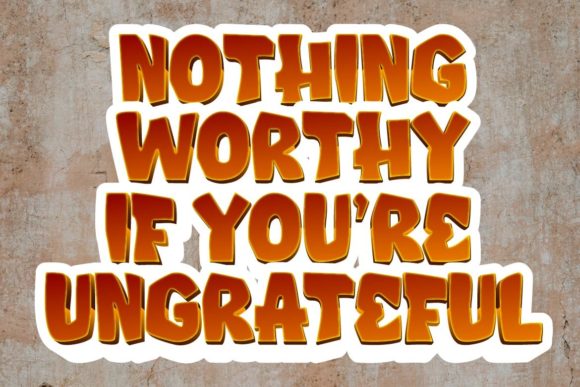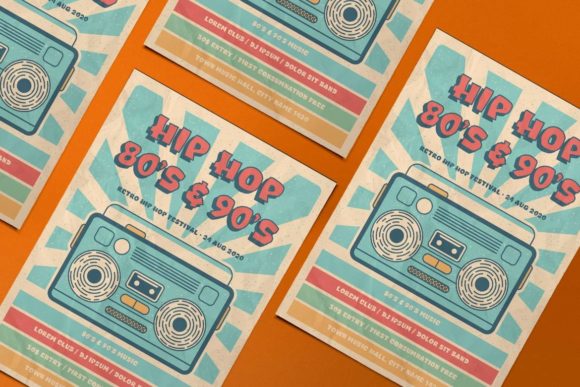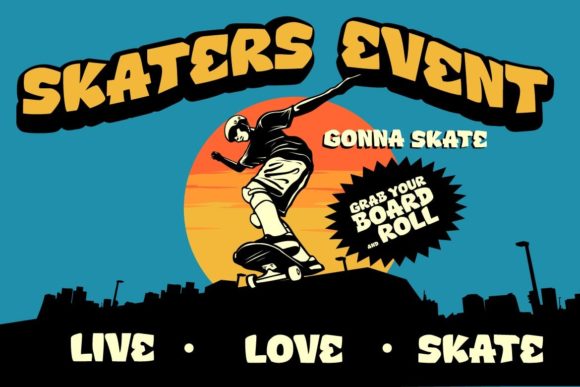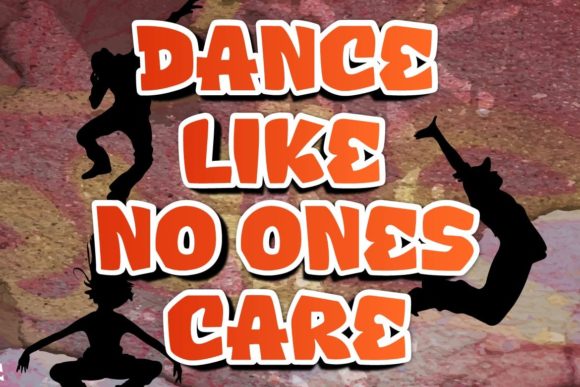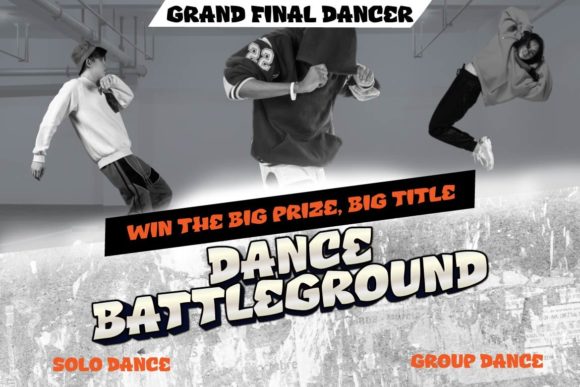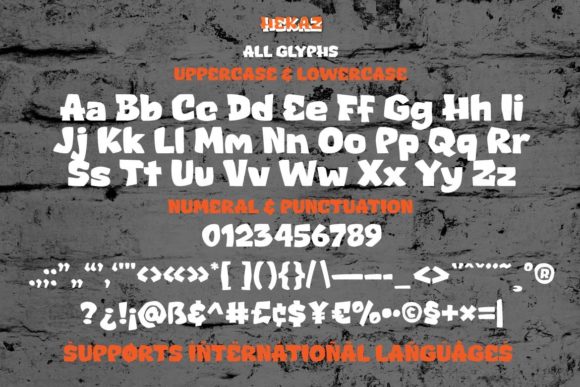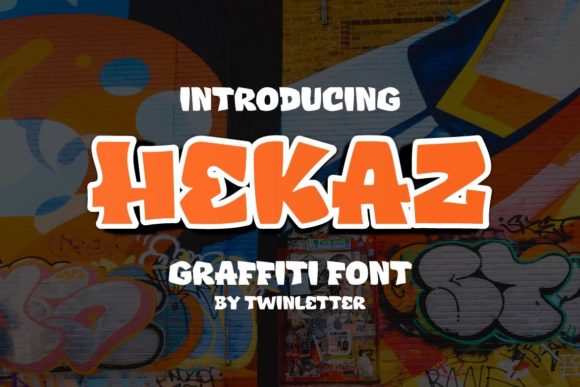
Hekaz Font: The Ultimate Urban Touch for Your Designs
In the world of typography, fonts play a crucial role in conveying the tone and personality of a design. For designers and crafters looking to add an urban touch to their work, Hekaz Font is an excellent choice. This cool, bold, and graffiti-styled display font is perfect for labels, branding, rap covers, and any design that requires a bold and edgy look.
What is Hekaz Font?
Hekaz Font is a modern, sans-serif font designed to make a statement. Its bold and graffiti-inspired style gives it a unique edge, making it perfect for designs that require a touch of urban grit. The font’s sleek lines and sharp edges give it a contemporary look that’s sure to grab attention.
Key Features of Hekaz Font
- Bold and Graffiti-Styled: Hekaz Font is designed to be bold and eye-catching, making it perfect for designs that require a strong visual impact.
- Urban Touch: The font’s graffiti-inspired style gives it an urban feel that’s perfect for designs that require a touch of edginess.
- Versatile: Hekaz Font works great on a variety of designs, including labels, branding, rap covers, and more.
- Easy to Read: Despite its bold style, Hekaz Font is easy to read, making it perfect for designs that require a clear and concise message.
Use Cases for Hekaz Font
Hekaz Font is a versatile font that can be used in a variety of design projects. Here are some use cases where Hekaz Font shines:
- Labels and Packaging: Hekaz Font is perfect for labels and packaging designs that require a bold and eye-catching look.
- Branding: The font’s unique style makes it perfect for branding projects that require a touch of urban grit.
- Rap Covers: Hekaz Font is a popular choice for rap covers, thanks to its bold and graffiti-inspired style.
- Posters and Flyers: The font’s bold style makes it perfect for posters and flyers that require a strong visual impact.
Tips for Using Hekaz Font
Here are some tips for using Hekaz Font in your designs:
- Use it Sparingly: Hekaz Font is a bold font, so use it sparingly to avoid overwhelming your design.
- Pair it with Other Fonts: Pair Hekaz Font with other fonts to create a unique and visually appealing design.
- Experiment with Colors: Hekaz Font works great with bold and bright colors, so experiment with different color schemes to find the perfect look.
Hekaz Font is a cool, bold, and graffiti-styled display font that’s perfect for designers and crafters looking to add an urban touch to their work. Its versatility, bold style, and ease of use make it a great choice for a variety of design projects. Whether you’re working on labels, branding, rap covers, or posters, Hekaz Font is sure to make a statement.